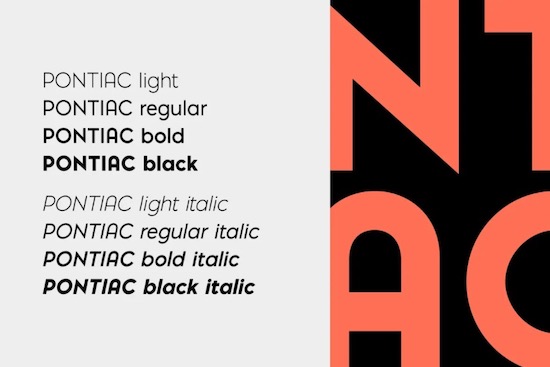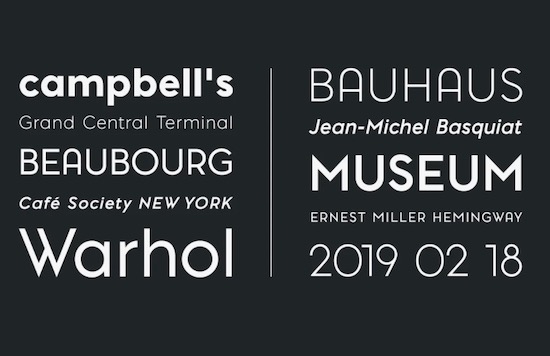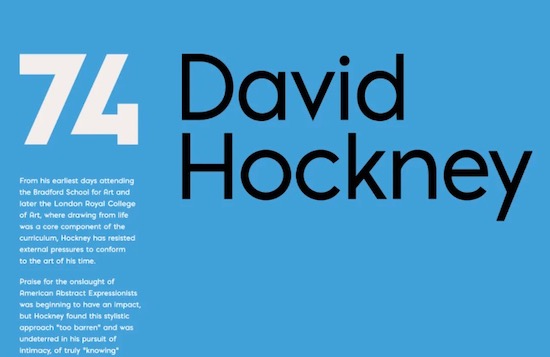
Pontiac is a modern elegant Sans Serif Font family that was designed and released by S&C Type. This is a geometrically sans serif font that is inspired by the gothic sans serif family style that’s incredibly versatile and robust. With Pontiac Font. If you see the detail, you can see that it is somewhere between Neutra and Akzidenz Grotesk, Pontiac is a functional font with many more about geometric and warm.
Pontiac Sans Serif Font